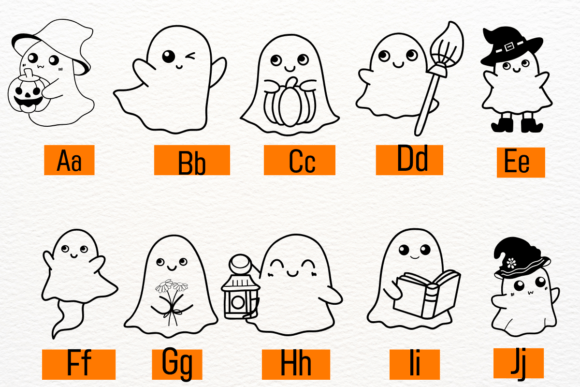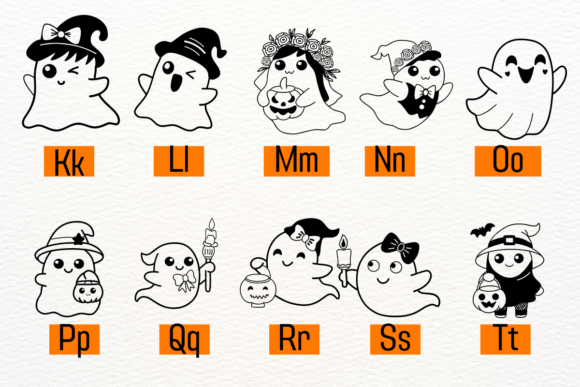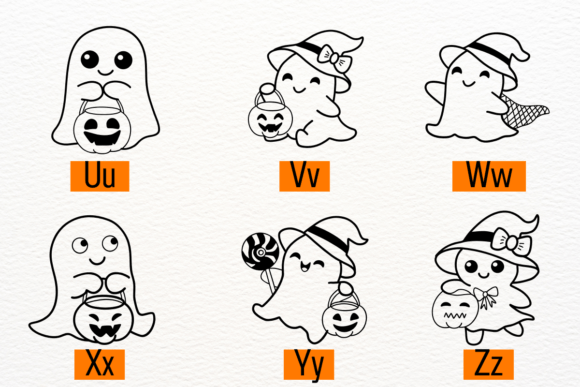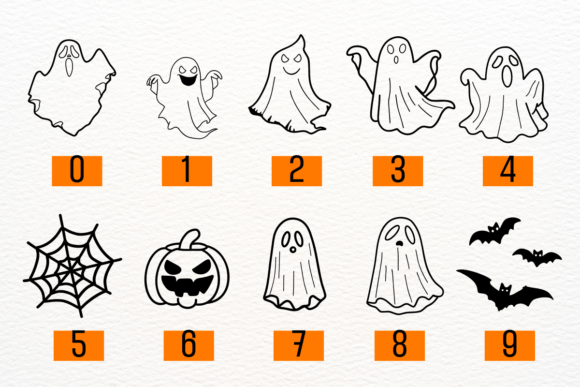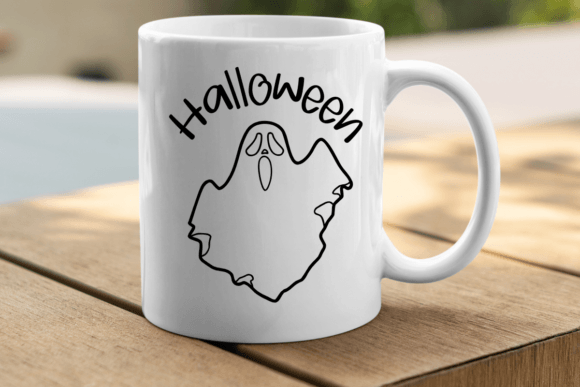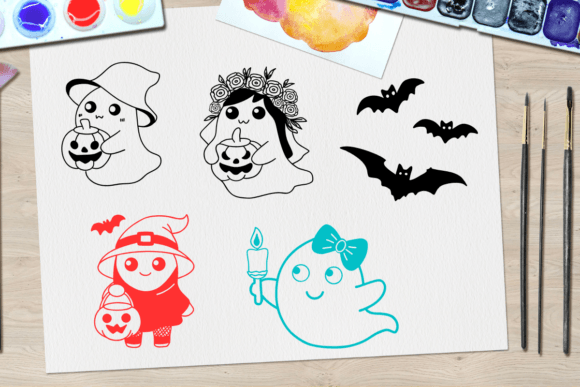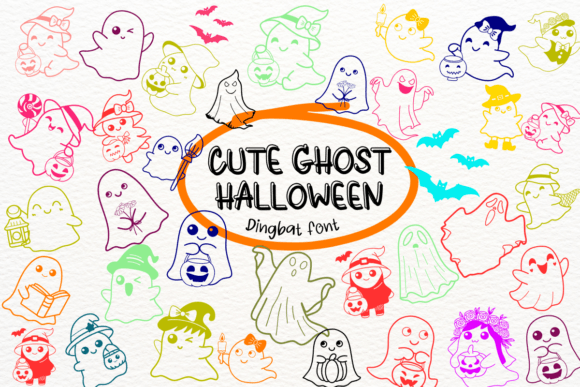
Cute Ghost Halloween Font: Add a Playful Touch to Your Spooky Season Designs
Halloween is just around the corner, and what better way to get into the spooky spirit than with a delightful and playful font that captures the essence of the season? Introducing our Cute Ghost Halloween Dingbat Font, a charming collection of ghostly characters that will add a touch of whimsy to your designs. In this article, we’ll dive into the features and benefits of this font, and explore how you can use it to create eye-catching Halloween-themed projects.
What is a Dingbat Font?
For those who may not be familiar, a dingbat font is a type of font that features a collection of symbols, icons, or illustrations rather than traditional letters and numbers. Dingbat fonts are often used for decorative purposes, adding a touch of personality and flair to designs. Our Cute Ghost Halloween Dingbat Font is no exception, featuring a range of adorable ghost illustrations that are sure to bring a smile to your face.
The Charm of Cute Ghost Halloween Font
Our Cute Ghost Halloween Dingbat Font is a meticulously crafted collection of ghostly characters, each one designed to capture the fun and playful side of Halloween. The font features a range of ghost illustrations, from cute and chubby ghosts to more mischievous and spooky ones. Whether you’re creating invitations, posters, social media graphics, or any other type of design, this font is sure to add a touch of personality and charm.
Features of Cute Ghost Halloween Font
- Unique and exclusive illustrations: Our Cute Ghost Halloween Dingbat Font features a range of unique and exclusive illustrations that you won’t find anywhere else.
- High-quality design: Each ghost illustration is meticulously crafted to ensure high-quality design and crisp lines.
- Scalable: Our font is fully scalable, allowing you to use it in a range of design applications, from small social media graphics to large posters and banners.
How to Use Cute Ghost Halloween Font
Our Cute Ghost Halloween Dingbat Font is perfect for a range of design applications, including:
- Halloween invitations: Add a playful touch to your Halloween party invitations with our adorable ghost illustrations.
- Social media graphics: Create eye-catching social media graphics that are sure to stand out with our Cute Ghost Halloween Dingbat Font.
- Posters and flyers: Use our font to create spooky and fun posters and flyers for your Halloween party or event.
- Crafting and DIY projects: Our font is also perfect for crafters and DIY enthusiasts, adding a touch of personality to handmade cards, gift tags, and other projects.
To get the most out of our Cute Ghost Halloween Dingbat Font, here are a few tips and inspiration ideas:
- Experiment with different colors and textures: Don’t be afraid to get creative and experiment with different colors and textures to add depth and interest to your designs.
- Mix and match illustrations: Our font features a range of ghost illustrations – try mixing and matching them to create unique and eye-catching designs.
- Add a personal touch: Use our font to add a personal touch to your designs, whether it’s a custom name or a special message.
| Font Name | Cute Ghost Halloween Font |
| Author | Petal Pixels |
Our Cute Ghost Halloween Dingbat Font is the perfect way to add a playful touch to your Halloween designs. With its unique and exclusive illustrations, high-quality design, and ease of use, this font is sure to become a go-to for designers and crafters alike. So why not give it a try and see how it can elevate your spooky season designs?